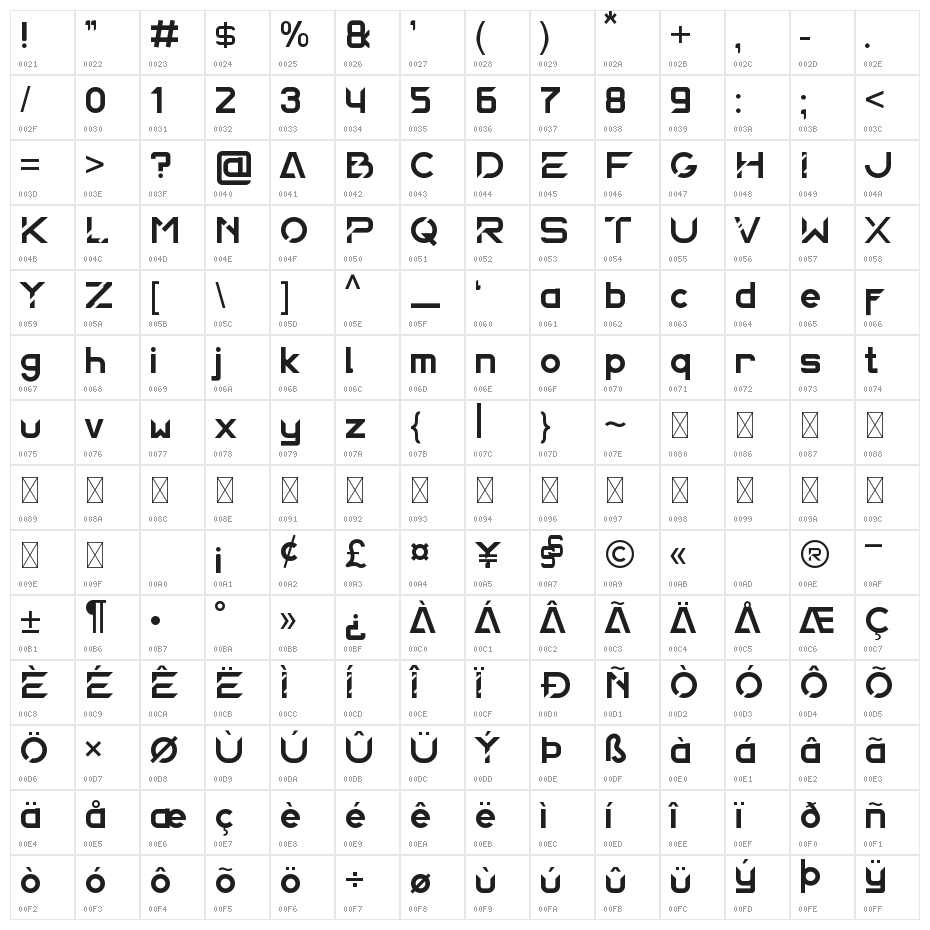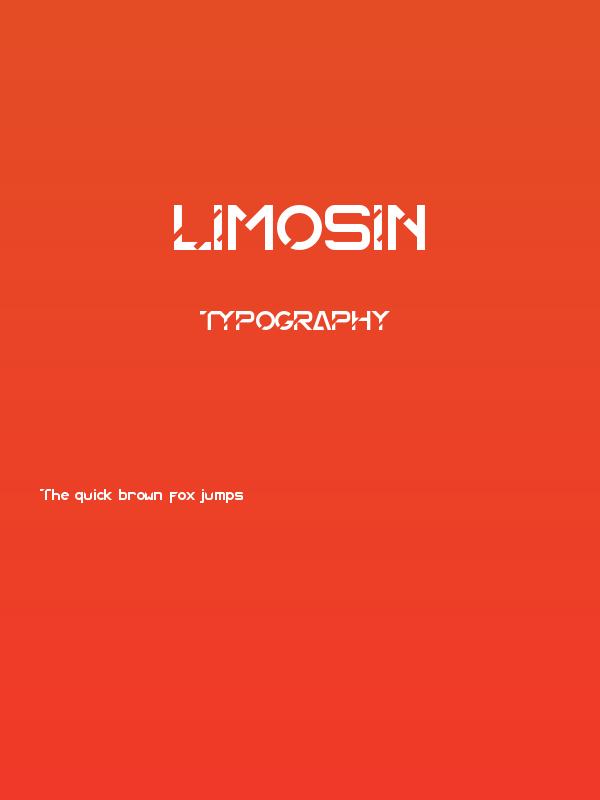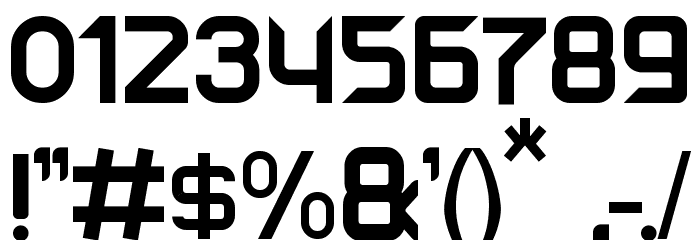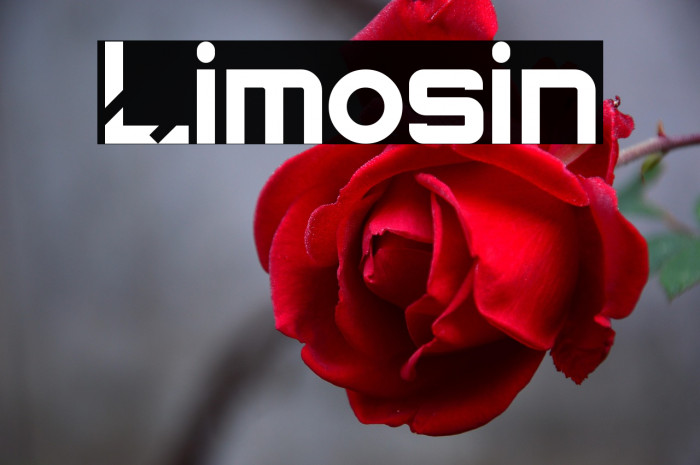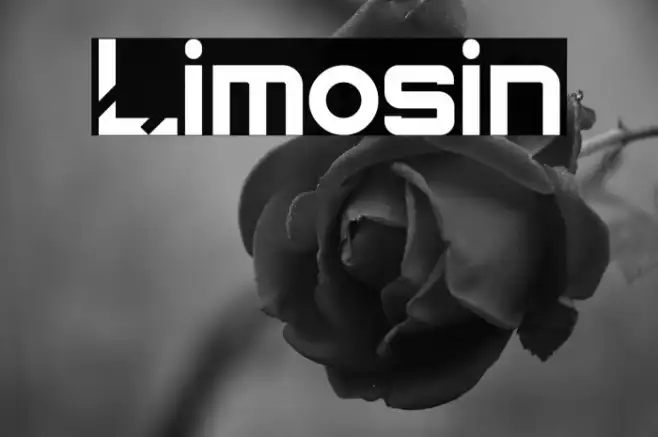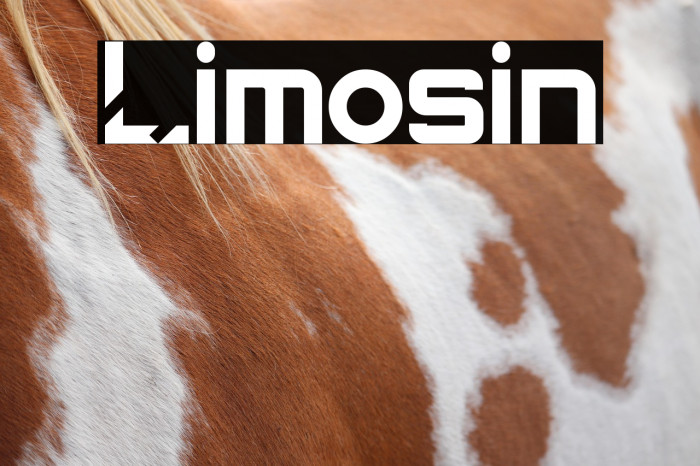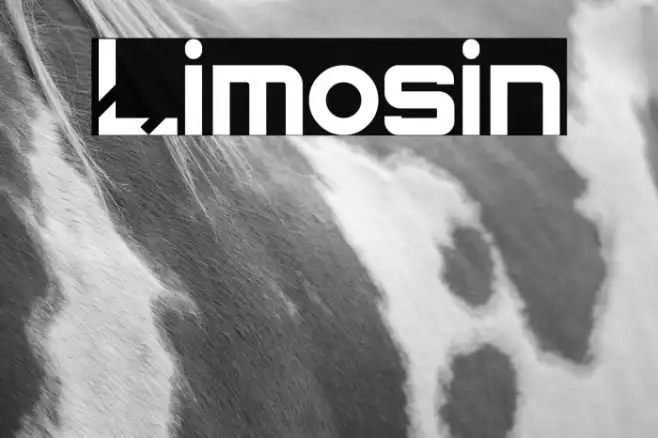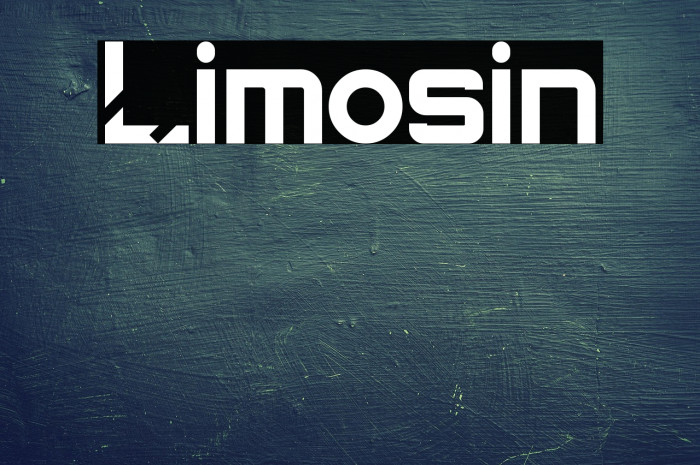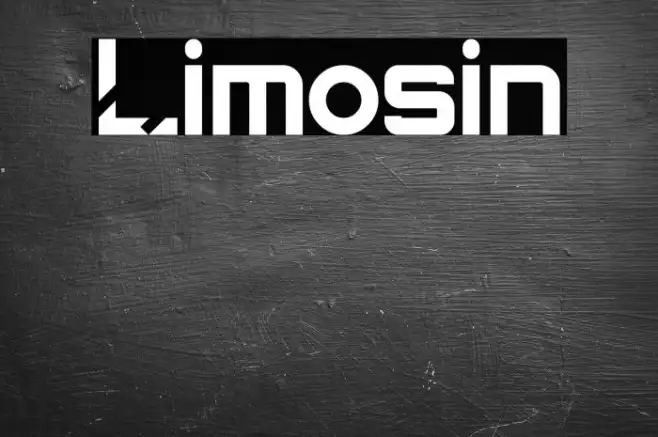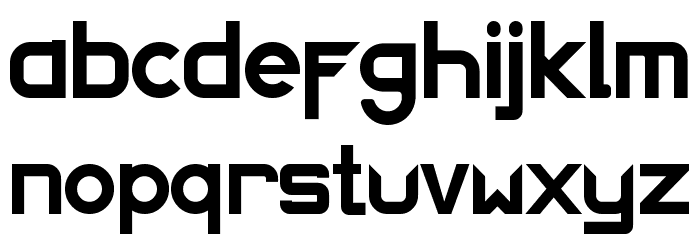
Limosin Font
Limosin Description
This font features a bold, geometric design with sharp angles and clean lines, creating a futuristic and modern appearance. The uppercase letters are particularly striking, with unique cuts and shapes that give them a dynamic and edgy look. The lowercase letters maintain a more rounded and smooth style, providing a nice contrast to the uppercase. Numbers and special characters follow the same design principles, ensuring consistency throughout. The overall style is both innovative and versatile, making it suitable for a variety of creative projects.
| Proposed Projects | Ideal for branding, posters, digital media, and any project requiring a modern and edgy aesthetic. |